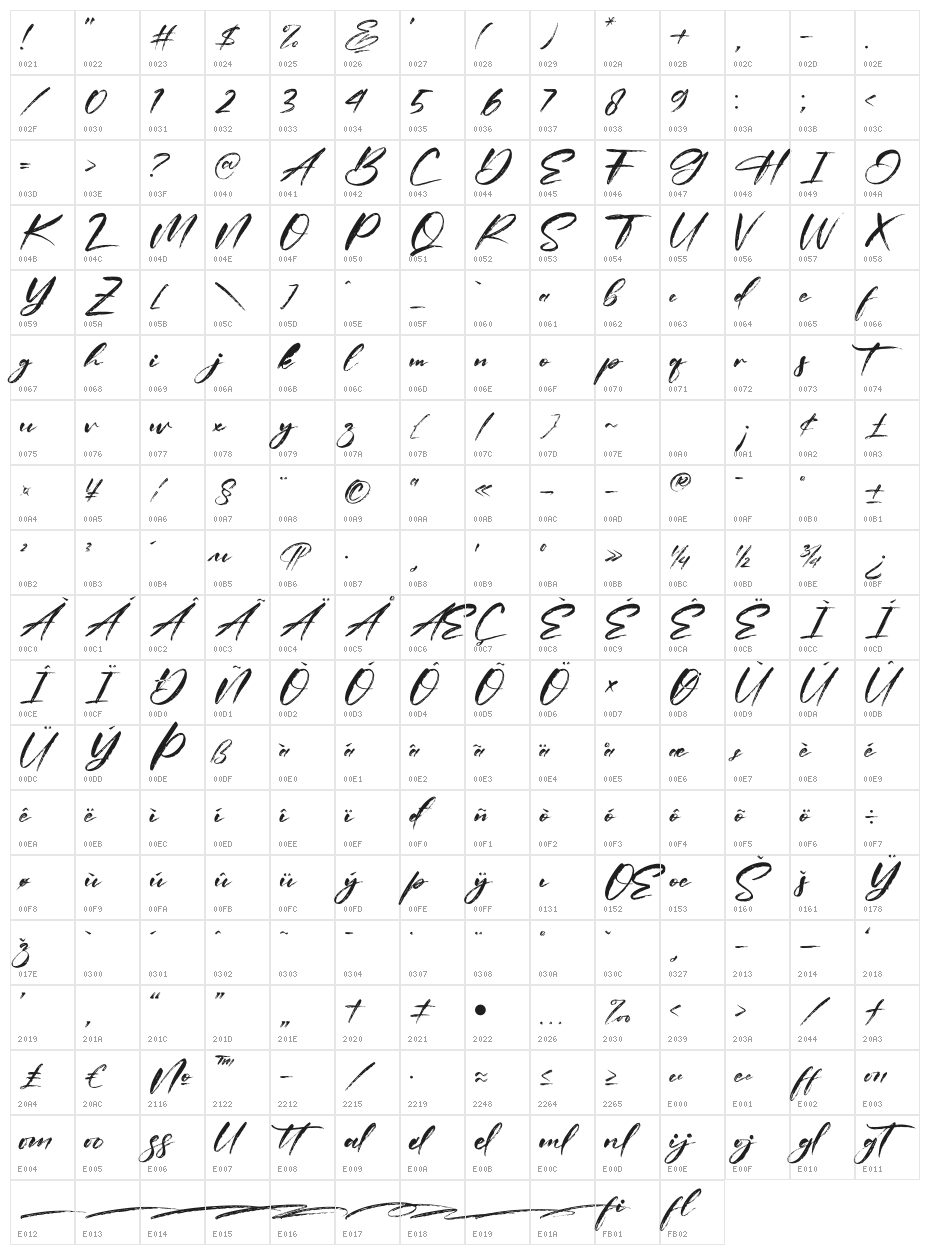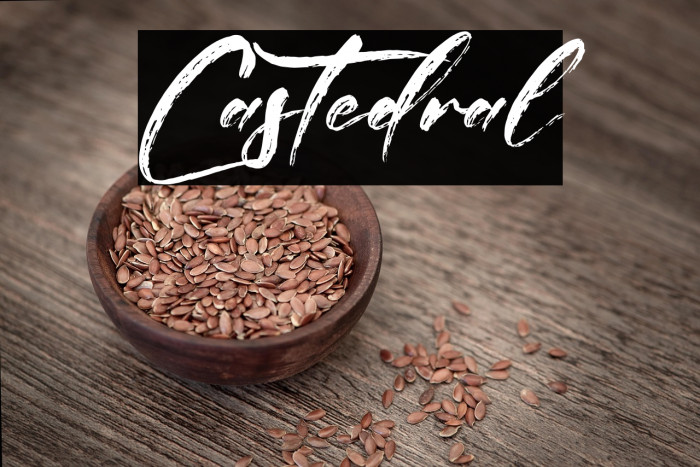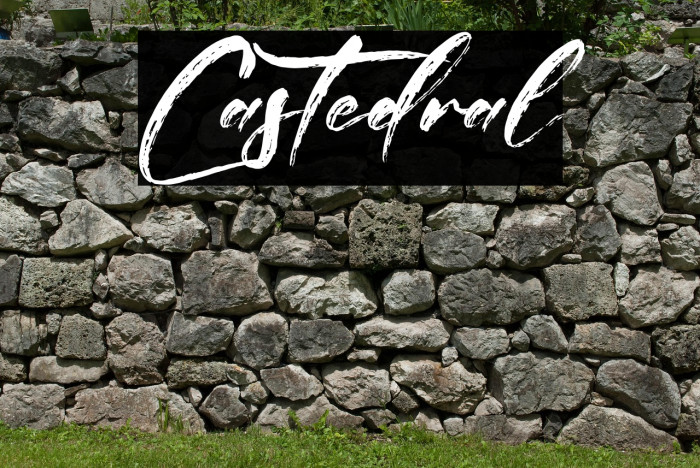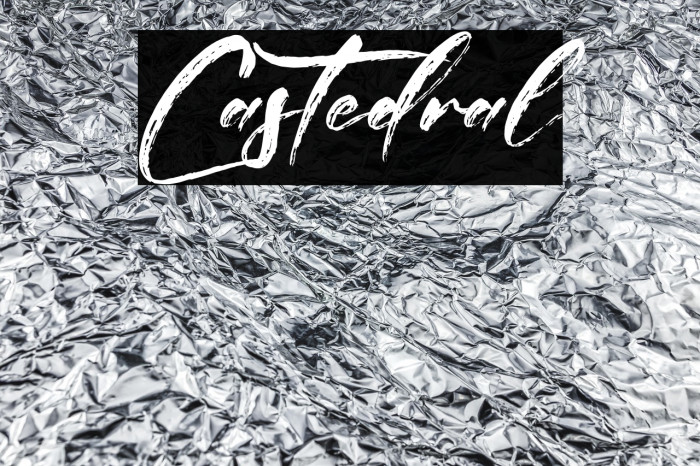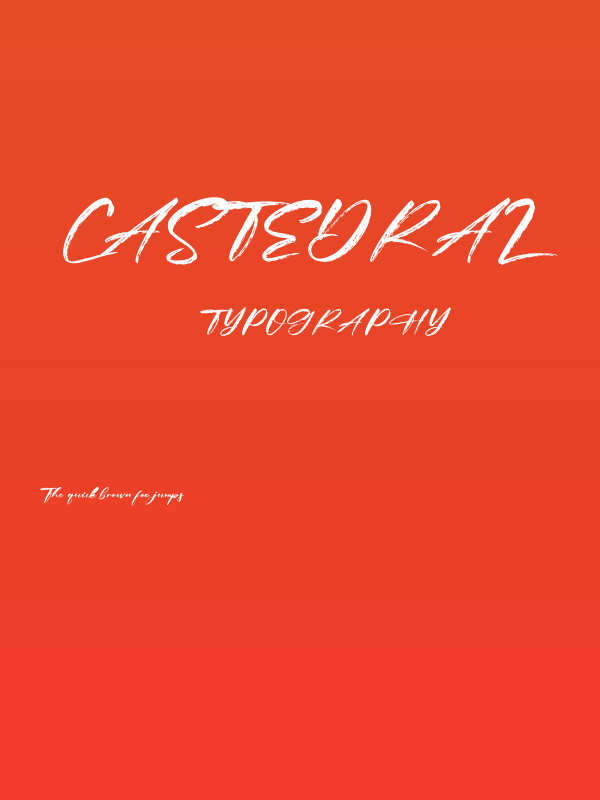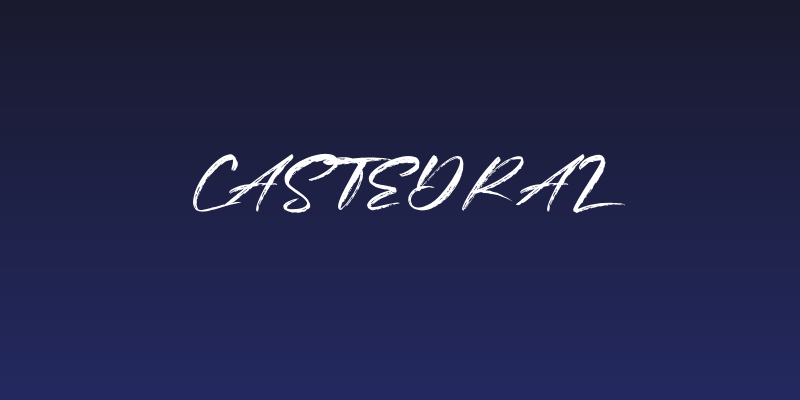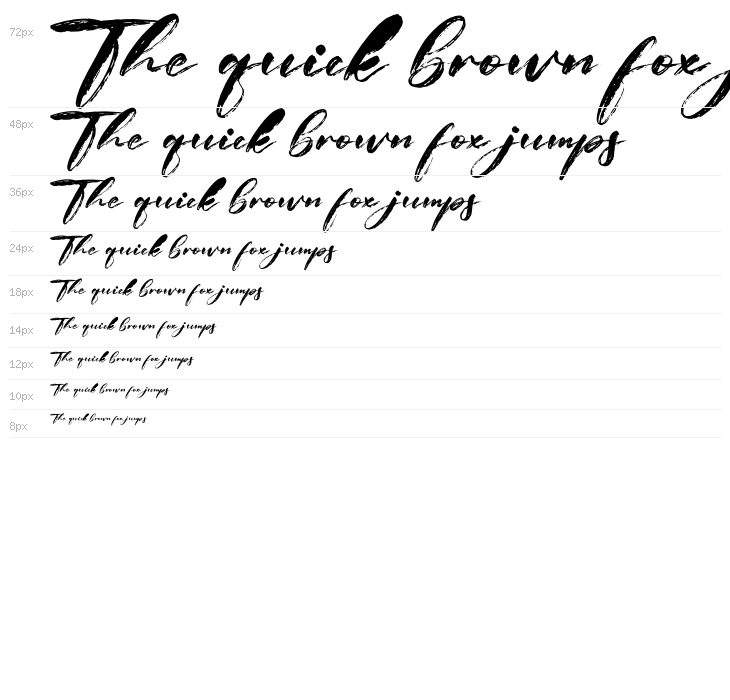
Castedral Font
Castedral Description
This font features a dynamic and expressive script style, characterized by its fluid and cursive strokes. The letters are connected, creating a seamless flow that mimics natural handwriting. The bold and artistic brush strokes give it a lively and energetic appearance, making it stand out with its unique flair. The uppercase letters are slightly more structured, while the lowercase letters exhibit a more freeform, casual style. Numbers and special characters maintain the same artistic brush effect, ensuring consistency throughout the font. This font's overall aesthetic is both modern and artistic, suitable for creative and expressive design projects.
| Use Case | Logos, Headlines, Artistic projects |
| Proposed Projects | Ideal for branding, invitations, greeting cards, and artistic posters. |